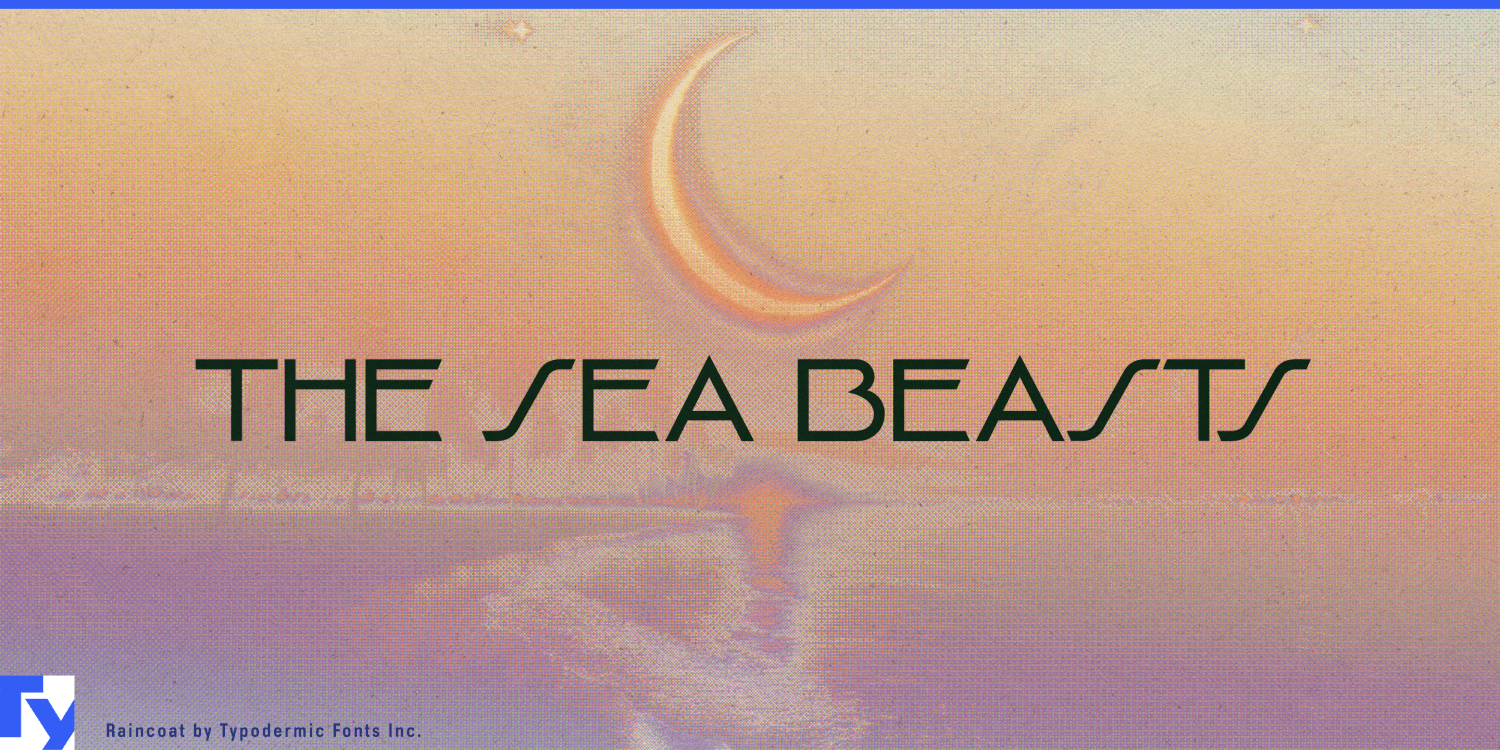
About Raincoat
Step into the world of Raincoat, a typeface that captures the essence of 1920s sophistication with a contemporary twist. This debonair display font exudes the charm of a well-tailored suit and the confidence of a seasoned raconteur, making it the perfect…